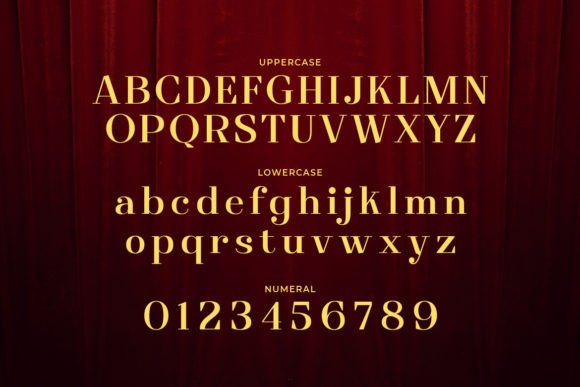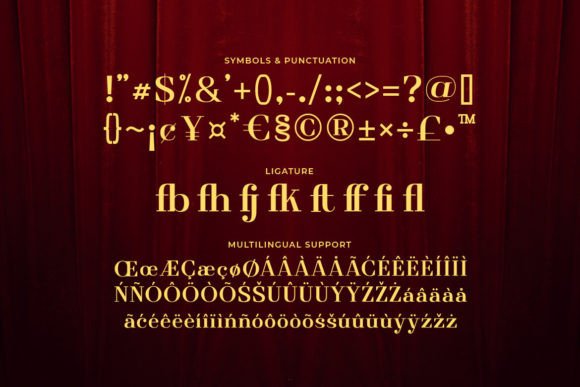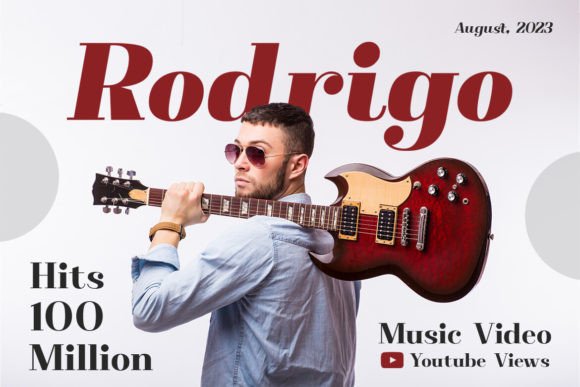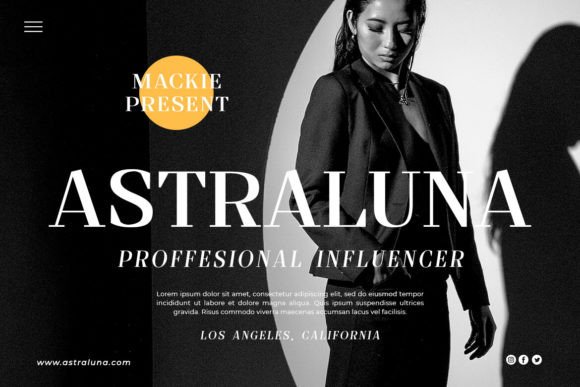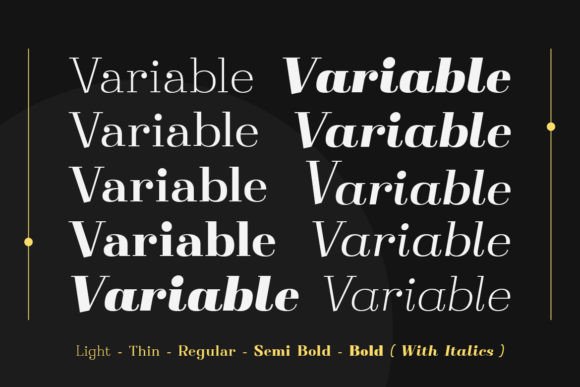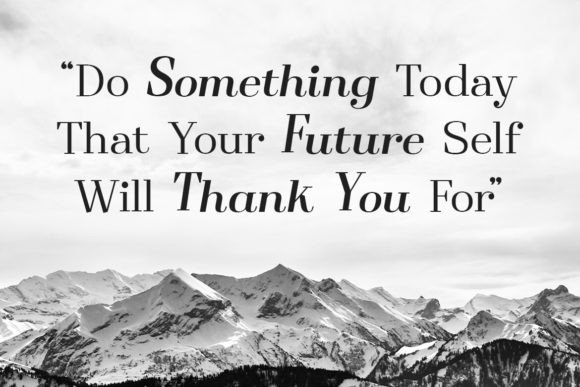
Introduction to Mackie Font
Have you ever found yourself staring at a blank page, struggling to find the perfect font to bring your creative project to life? As designers, we’ve all been there. But what if I told you that there’s a font that can help you break free from the monotony of typography and unleash your creativity like never before?
Enter the Mackie Font – a game-changing serif variable font that’s about to become your new design best friend. With its elegant and timeless letterforms, this versatile font is the ultimate design resource for anyone looking to elevate their creative projects. Whether you’re working on a high-quality branding material or a digital interface with a transparent background, the Mackie Font has got you covered.
As a valuable addition to any designer’s toolkit, the Mackie Font offers the freedom to customize and adapt typography with ease, making it an absolute must-have for any creative project.
Mackie Font
- Features a transparent background, making it perfect for graphic design and digital art
- Designed with a unique blend of modern and vintage elements, offering a distinctive look
- Includes a range of glyphs and characters, suitable for both personal and commercial use
Honest Review: Mackie Font
As a designer, I’ve had the chance to work with various fonts, but the Mackie Font has been a recent addition to my design resource library. I was excited to dive in and see what it had to offer.
Here are some of the things that work well for me:
- ✨ High-quality design: The Mackie Font has a clean and modern aesthetic that’s perfect for creative projects.
- ✨ Transparent background: This feature has been a game-changer for me, allowing me to create seamless designs with ease.
- ⚠️ Limited character set: While the font is perfect for titles and headings, it’s not suitable for extensive body text.
- ⚠️ Not ideal for small text sizes: I found that the font can become blurry when used at small text sizes, which may affect readability.
Overall, I’m impressed with the Mackie Font. It’s a great addition to my design library, and I’ve enjoyed using it for various creative projects. While it has some limitations, I believe it’s a valuable resource for designers looking for a high-quality, modern font.
Tips for Getting the Most Out of Mackie Font
To get the most out of the Mackie Font, be sure to use it with a transparent background to ensure that the font stands out. You can also experiment with different font sizes and styles to add visual interest to your design.
The Mackie Font is a versatile font that can be used for a variety of creative projects, including graphics, documents, and presentations. Some common use cases include:
- Creating eye-catching graphics for social media
- Designing professional-looking documents
- Creating engaging presentations
Compared to Mackie Font, Great Vibes Font has a more refined and polished look, making it suitable for more formal projects. It’s a great choice for designers who want to add a touch of elegance to their design without sacrificing readability.